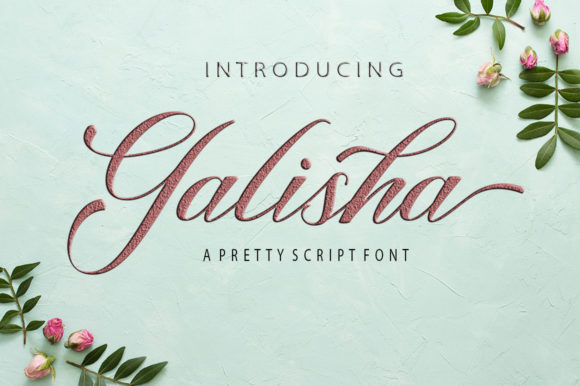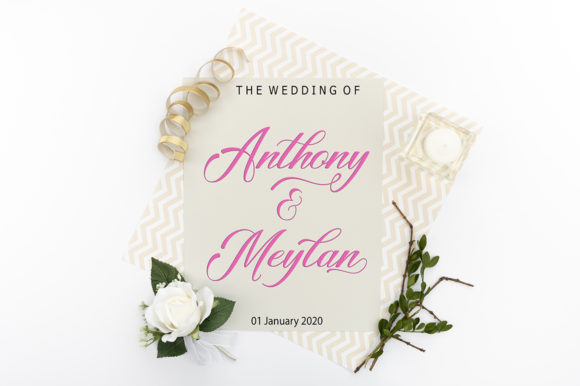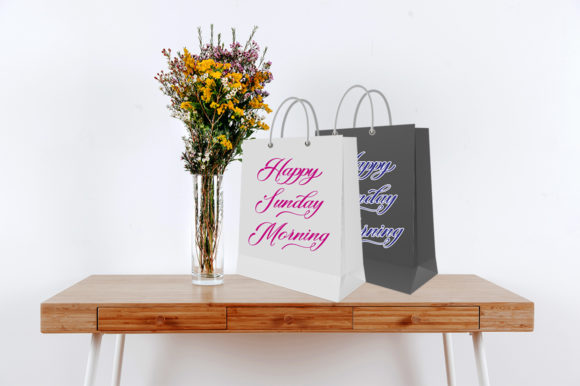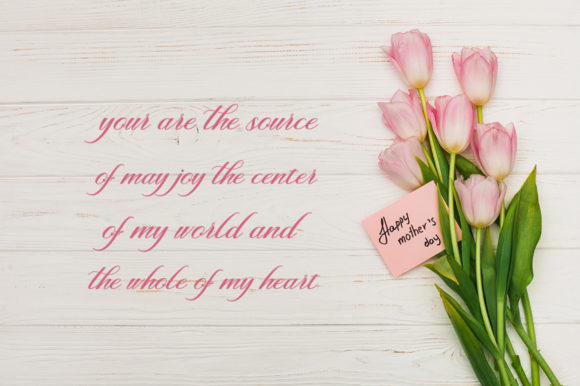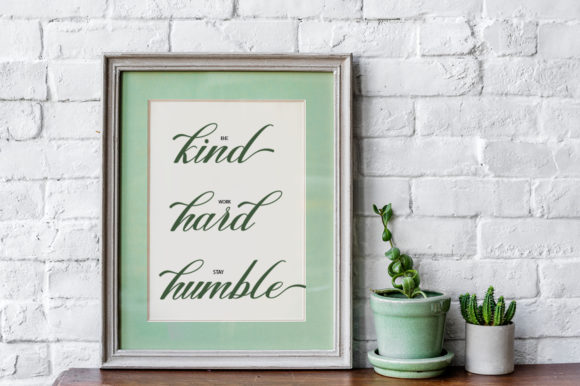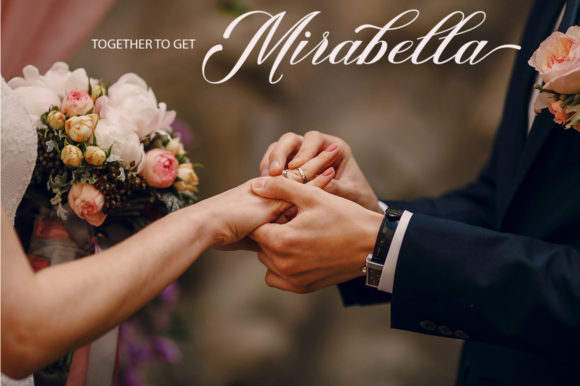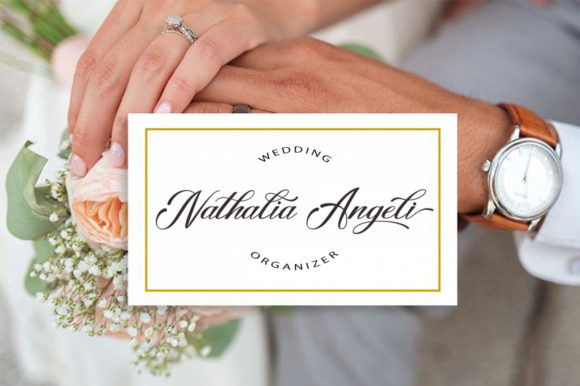
HomeScript FontsGalisha Font Script Fonts Galisha Font FacebookXPinterestWhatsApp Galisha Font Poster 2 Galisha Font Poster 3 Galisha Font Poster 4 Galisha Font Poster 5 Galisha Font Poster 6 Galisha Font Poster 7 About Galisha Font Galisha is a stunning script with an elegant feel. Get inspired by its timeless charm! DOWNLOAD ON CREATIVE FABRICAThis font is sold and delivered by Creative Fabrica. Font Canyon may earn a commission if you buy through this link. People also explored Hollie Joy Font Diamond Temple Font Foxhunt Font Victorine Font Mighttel Muthia Font Antheme Font Blessed Fall Font Apesho Font 325 0 TagsGalisha Font Previous articleSummer Vibes FontNext articleAmigueta Script Font LEAVE A REPLY Cancel reply Comment: Please enter your comment! Name:* Please enter your name here Email:* You have entered an incorrect email address! Please enter your email address here Website: Save my name, email, and website in this browser for the next time I comment. Personal Use Free Awesome Snowflakes Font Personal Use Free Read more about this font Alphakind Personal Use Free Read more about this font Bruttney Personal Use Free Read more about this font Scoothlane Personal Use Free Read more about this font BLOG Free vs Paid Fonts: Why Investing in Premium Fonts Is Worth It Free vs Paid Fonts: Why Premium Fonts Are Worth It in 2025 The debate of free vs paid fonts continues in the design world. While... Fonts That Capture the Spirit of New York City Top 7 Google Fonts Alternatives for Faster and Privacy-Friendly Web Design (2025) Best Fonts for YouTube Videos: Make Your Thumbnails Stand Out